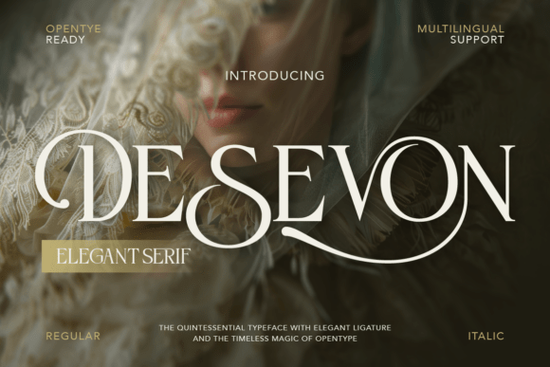
If you're looking for a font that combines classic elegance with a modern twist, Desevon Font is a great choice. This refined and elegant serif typeface is designed to bring timeless beauty and sophistication to your projects.
What Makes Desevon Font Stand Out?
Desevon is crafted with graceful curves, high-contrast strokes, and luxurious ligatures. These features make it a standout choice for designers who want to add a touch of exclusivity and elegance to their work. Whether you're working on high-end branding, editorial layouts, or wedding designs, Desevon delivers a perfect balance of classic charm and modern finesse.
Perfect For a Variety of Projects
Desevon is versatile and can be used in a wide range of design projects. Here are some areas where it shines:
- Luxury branding & logos: The refined look of Desevon makes it ideal for high-end brands and luxury products.
- Fashion editorials & magazines: Add a touch of elegance to your fashion content with this sophisticated typeface.
- Wedding invitations: Desevon's graceful curves and delicate swashes make it perfect for creating beautiful and memorable wedding invitations.
- Beauty & skincare packaging: Elevate the look of your beauty and skincare products with this elegant font.
- Social media & Pinterest content: Make your social media posts and Pinterest graphics stand out with Desevon's unique and expressive style.
- High-end product design: Use Desevon to add a touch of luxury and sophistication to your product designs.
Features and What You Get
Desevon comes with a comprehensive set of characters and features to help you create stunning designs:
- A – Z set (Uppercase & Lowercase): A complete set of letters in both uppercase and lowercase.
- Number and punctuation: Includes numbers and a full set of punctuation marks.
- Alternates and ligatures: Offers stylistic alternates and luxurious ligatures to add variety and uniqueness to your text.
- Multilingual support: Supports multiple languages, making it a versatile choice for international projects.
- Desevon Characters Map: A detailed map of all the characters and their variations.
Incorporating Desevon into your designs is straightforward. Here are some tips to get the most out of this elegant font:
- Choose the right context: Desevon works best in projects that require a touch of elegance and sophistication. Consider using it for high-end branding, editorial content, and luxury packaging.
- Experiment with alternates and ligatures: Take advantage of the stylistic alternates and ligatures to add variety and uniqueness to your text. This can make your designs more visually appealing and memorable.
- Combine with complementary fonts: Pair Desevon with other clean and simple fonts to create a balanced and harmonious design. For example, you might use a sans-serif font like Silkydusk for a modern contrast.
- Test different sizes and weights: Experiment with different sizes and weights to find the perfect fit for your project. Desevon's high-contrast strokes and graceful curves can be particularly effective in larger sizes.
Practical Checklist for Using Desevon Font
- Identify the project type: Determine whether Desevon is suitable for your current project, such as luxury branding, editorial content, or wedding invitations.
- Explore the character set: Familiarize yourself with the available characters, including alternates and ligatures, to add variety to your designs.
- Test with different fonts: Combine Desevon with other fonts to create a balanced and harmonious design. Consider using a sans-serif font for a modern contrast.
- Adjust sizes and weights: Experiment with different sizes and weights to find the best fit for your project. Larger sizes can highlight Desevon's elegant curves and high-contrast strokes.